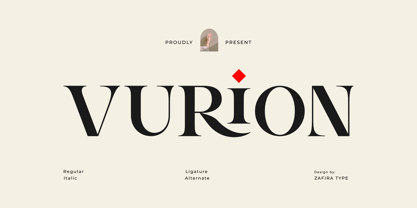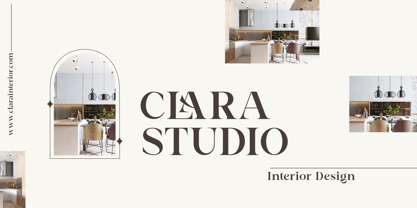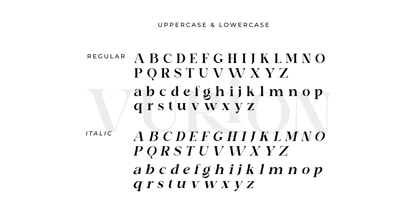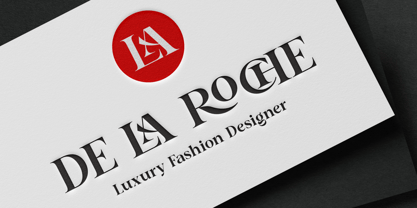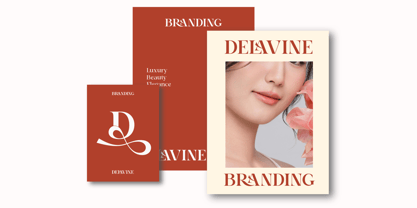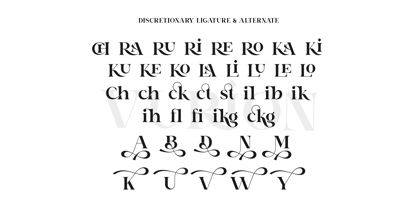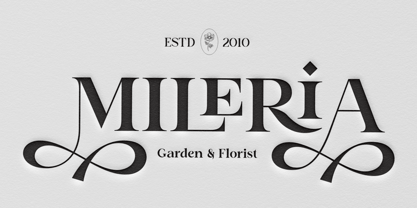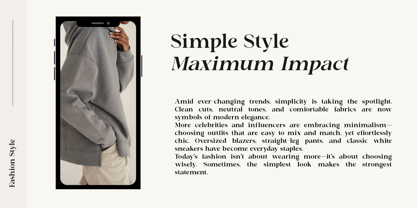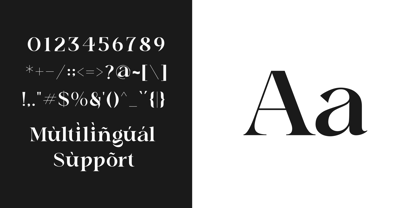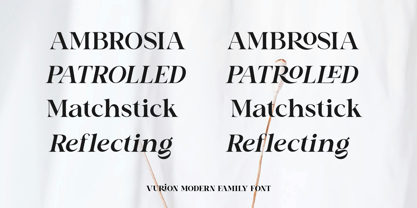
Vurion
by Zafira Type
The Vurion Font Family was designed by Su Hirno and published by Zafira Type. Vurion contains 2 styles and family package options. More about this family
Vurion is a refined serif typeface designed to bring a sense of elegance and clarity to your typography. Featuring both Regular and Italic styles, Vurion blends classic forms with modern touches—ideal for editorial design, branding, and sophisticated layouts. With its balanced contrast and graceful curves, this typeface adds character without compromising readability. Whether for headlines or body text, Vurion offers timeless beauty in every letter
Designers: Su Hirno
Foundry: Zafira Type